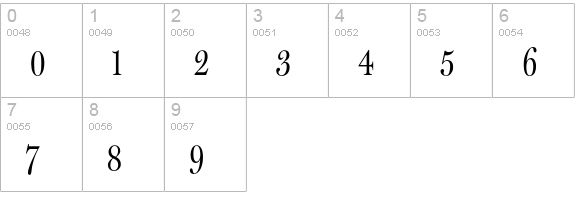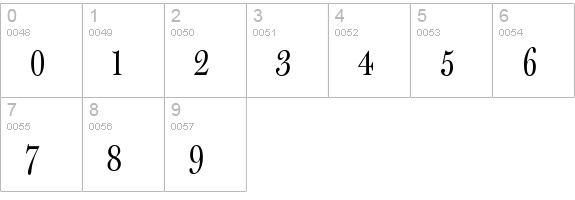
PostSerif Font Details
PostSerif font is a versatile and elegant typeface that combines classic serif elements with a modern twist. Its clean lines and balanced proportions make it perfect for a wide range of design projects, from branding to editorial layouts. The timeless appeal of PostSerif font ensures that your text will always look sophisticated and polished. Best of all, PostSerif font is available for free download at FontsMarket.com. You can easily access this stylish typeface and elevate your designs without any cost. Don't miss out on the opportunity to enhance your projects with the timeless charm of PostSerif font. Download it today and start creating beautiful typography that stands out from the rest.